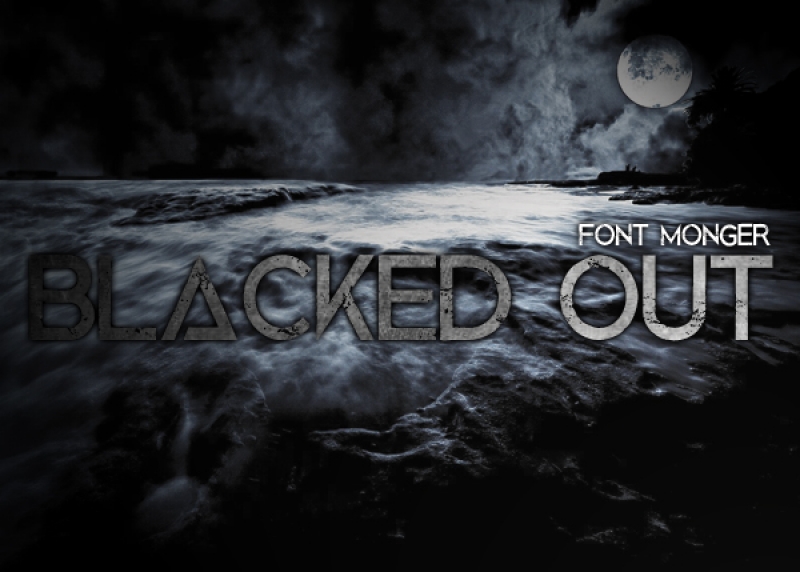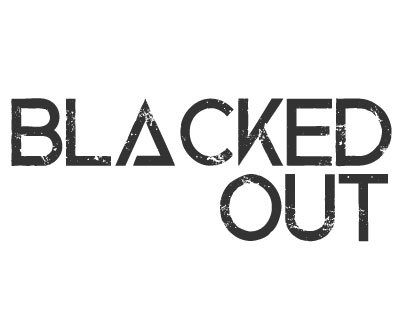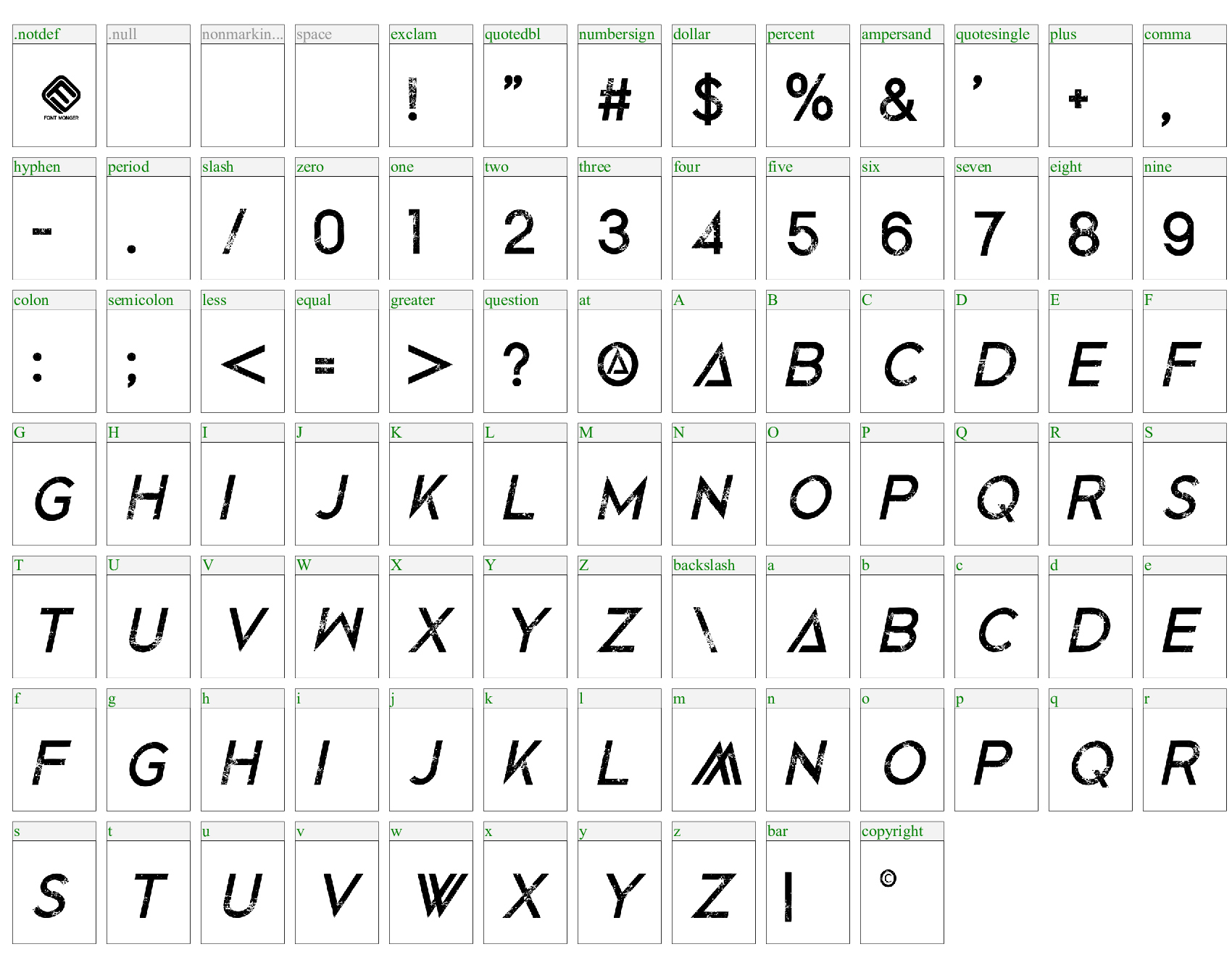
Blacked Out is a unique and eye-catching sci-fi sans serif font that is perfect for creating futuristic and high-tech designs. This font features eroded and distressed letterforms that give it a rugged and industrial feel. The sans serif style gives the font a clean and modern look, while the erosion adds a touch of unpredictability, making it ideal for use in projects that require a techy, futuristic vibe. Whether you're creating posters, flyers, or digital designs, Blacked Out is sure to add a touch of sci-fi flair to your work. The font's versatile design makes it suitable for a wide range of design projects, from video games and sci-fi movies to technology and gadget branding. Blacked Out is a must-have for designers looking for a unique and innovative sci-fi font to add to their toolkit.
Lowercase: Same as uppercase except M and W
Numbers: Yes
Punctuation & Symbols: Yes, limited.
Styles: Eroded, & solid
Theme: Eroded, Sci-fi
Eroded Version:
Solid Version: